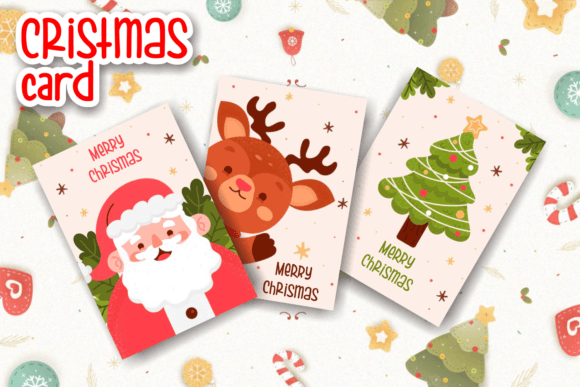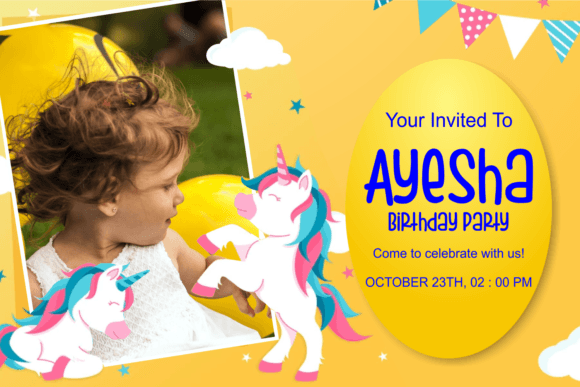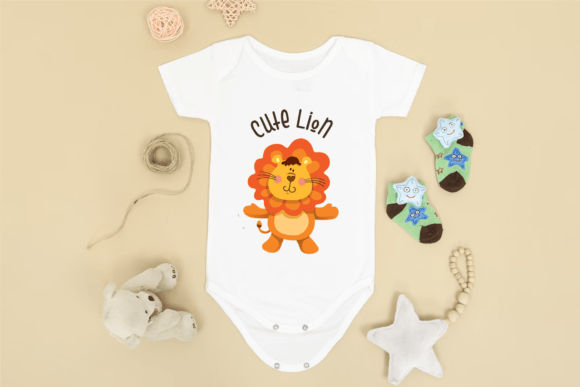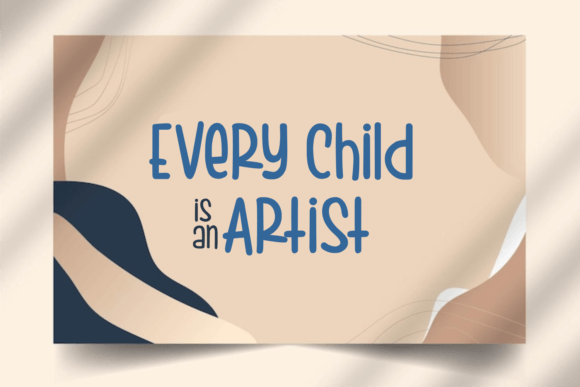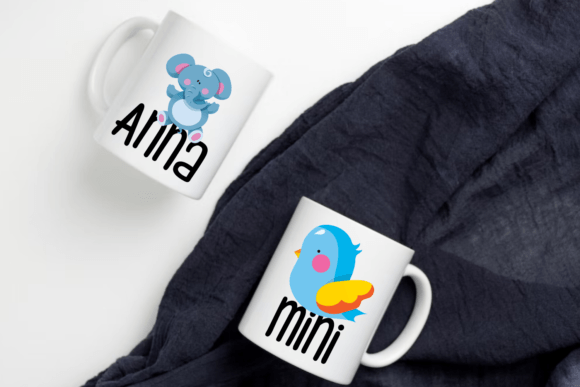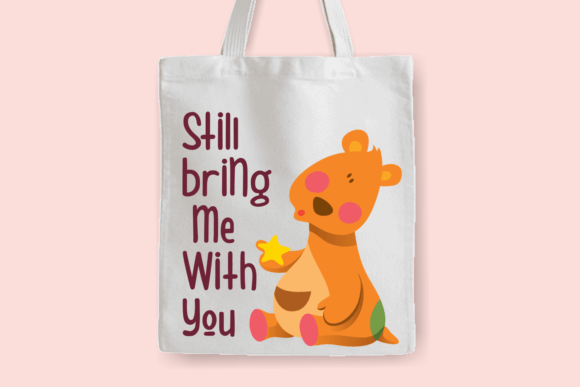
Introducing Delighted Font: The Fun and Playful Typeface to Elevate Your Designs
Are you tired of using the same old fonts in your designs? Look no further than Delighted Font, a unique and quirky typeface that’s sure to bring a smile to your face and inspire your creativity. With its uneven and unpredictable style, Delighted Font is perfect for designers and crafters who want to add a touch of whimsy and fun to their projects.
What Makes Delighted Font Special?
Delighted Font is a one-of-a-kind typeface that’s designed to make your projects stand out from the crowd. Its uneven and unpredictable style gives it a playful and carefree feel that’s perfect for creating fun and memorable designs. Whether you’re working on a title, pamphlet, greeting card, product packaging, book cover, printed quote, logotype, clothing design, or album cover, Delighted Font is sure to add a touch of personality and flair.
Delighted Font is a versatile typeface that can be used for a wide range of projects, including:
- Titles and headings: Add a pop of personality to your titles and headings with Delighted Font’s unique and playful style.
- Pamphlets and brochures: Create eye-catching and engaging pamphlets and brochures that will grab your audience’s attention.
- Greeting cards: Add a touch of whimsy and fun to your greeting cards with Delighted Font’s playful style.
- Product packaging: Make your product packaging stand out from the crowd with Delighted Font’s unique and quirky style.
- Book covers: Create eye-catching and memorable book covers that will grab readers’ attention.
- Printed quotes: Add a touch of personality and style to your printed quotes with Delighted Font.
- Logotypes: Create a unique and memorable logotype for your brand with Delighted Font.
- Clothing designs: Add a touch of fun and personality to your clothing designs with Delighted Font.
- Album covers: Create eye-catching and memorable album covers that will grab music lovers’ attention.
Why Choose Delighted Font?
There are many reasons why Delighted Font is the perfect choice for designers and crafters, including:
- Unique and playful style: Delighted Font’s uneven and unpredictable style makes it a one-of-a-kind typeface that’s sure to grab attention.
- Versatility: Delighted Font can be used for a wide range of projects, from titles and headings to product packaging and album covers.
- Inspires creativity: Delighted Font’s playful style is sure to inspire your creativity and help you come up with new and innovative design ideas.
Tips for Using Delighted Font
Here are a few tips for getting the most out of Delighted Font:
- Experiment with different sizes and colors: Delighted Font looks great in a variety of sizes and colors, so don’t be afraid to experiment and find the perfect combination for your project.
- Pair with other fonts: Delighted Font pairs well with a variety of other fonts, so try pairing it with a serif or sans-serif font to create a unique and interesting contrast.
- Use it sparingly: Delighted Font is a bold and playful typeface, so use it sparingly to add emphasis and personality to your designs.
Delighted Font is a unique and playful typeface that’s perfect for designers and crafters who want to add a touch of whimsy and fun to their projects. With its uneven and unpredictable style, Delighted Font is sure to grab attention and inspire creativity. Whether you’re working on a title, pamphlet, greeting card, product packaging, book cover, printed quote, logotype, clothing design, or album cover, Delighted Font is the perfect choice. So why wait? Download Delighted Font today and start creating fun and memorable designs!